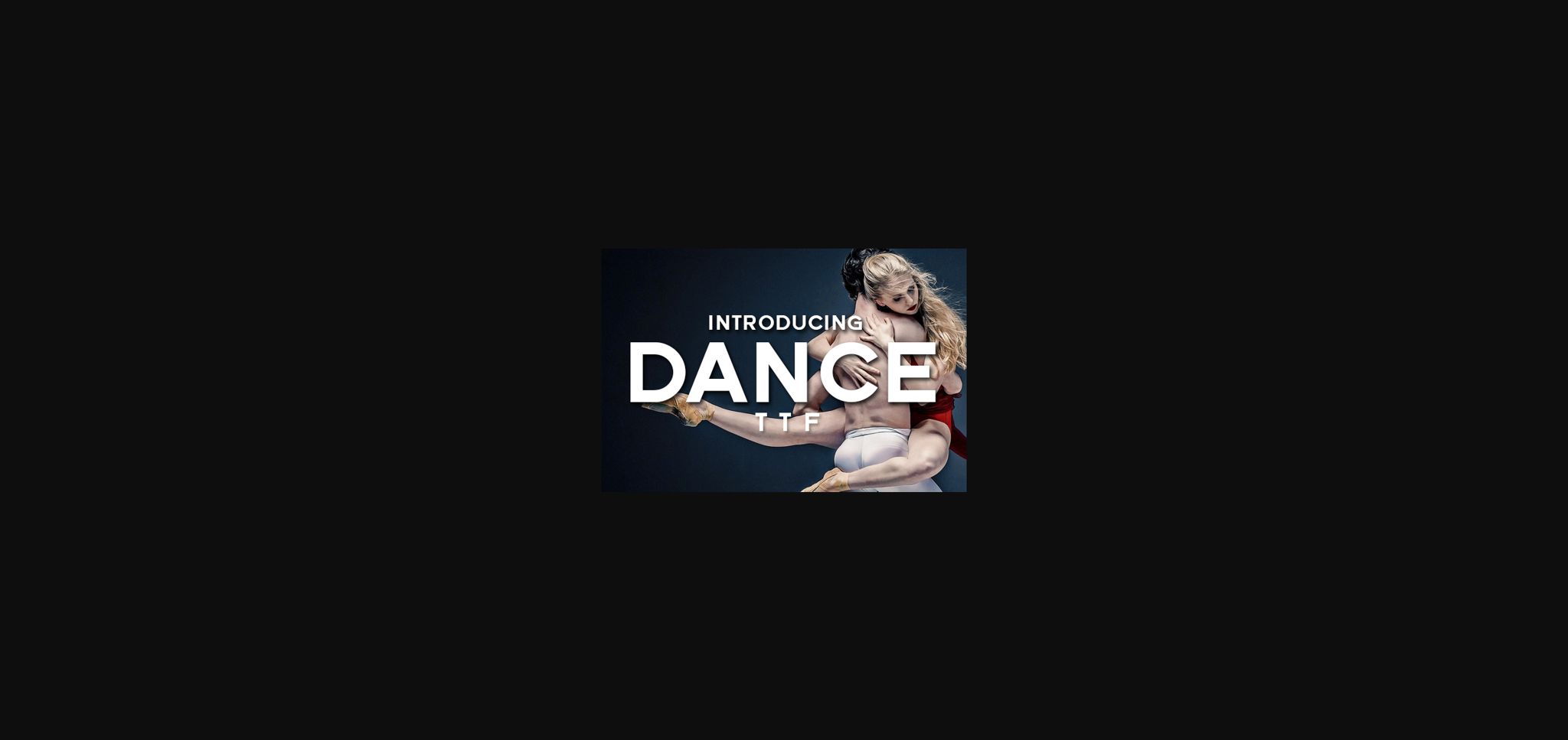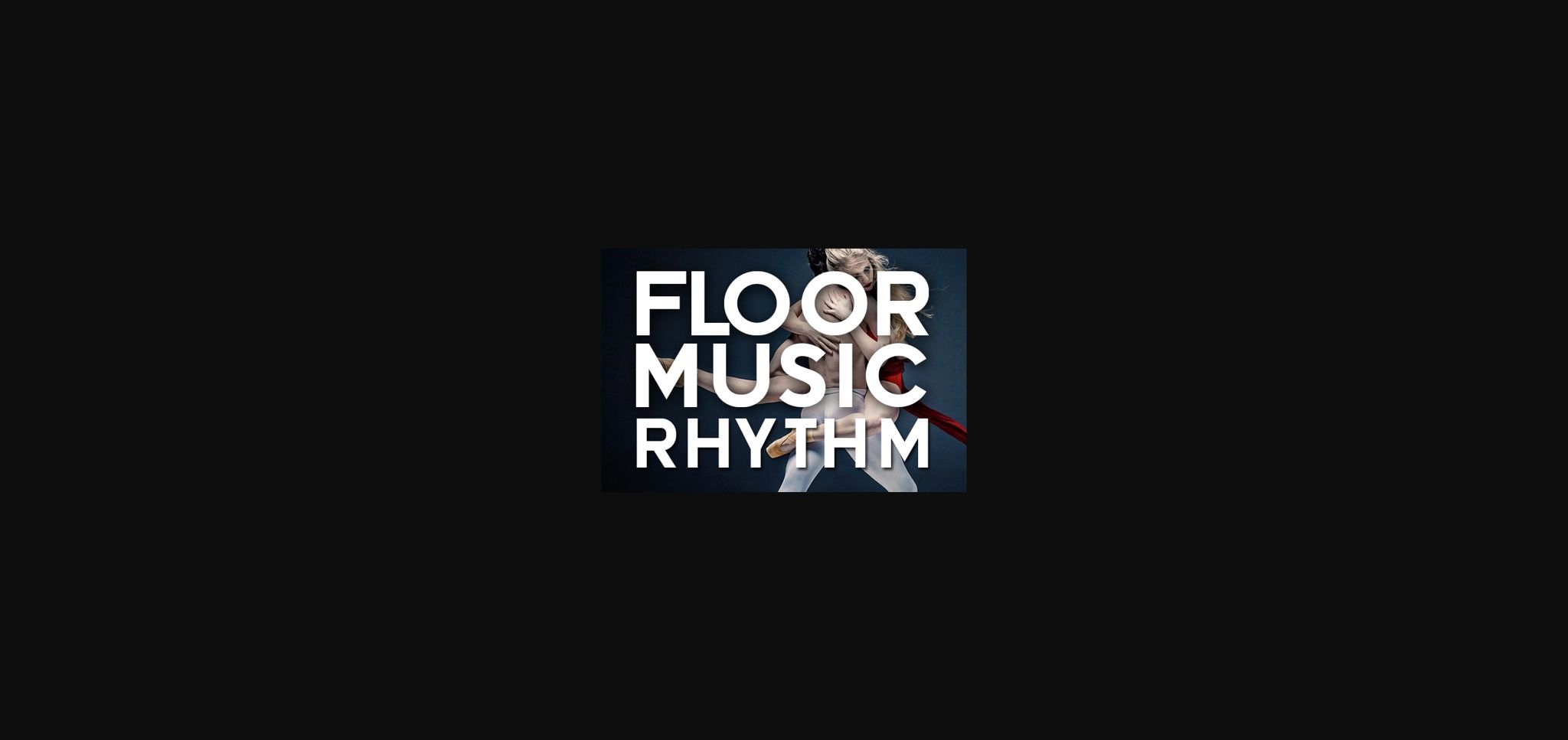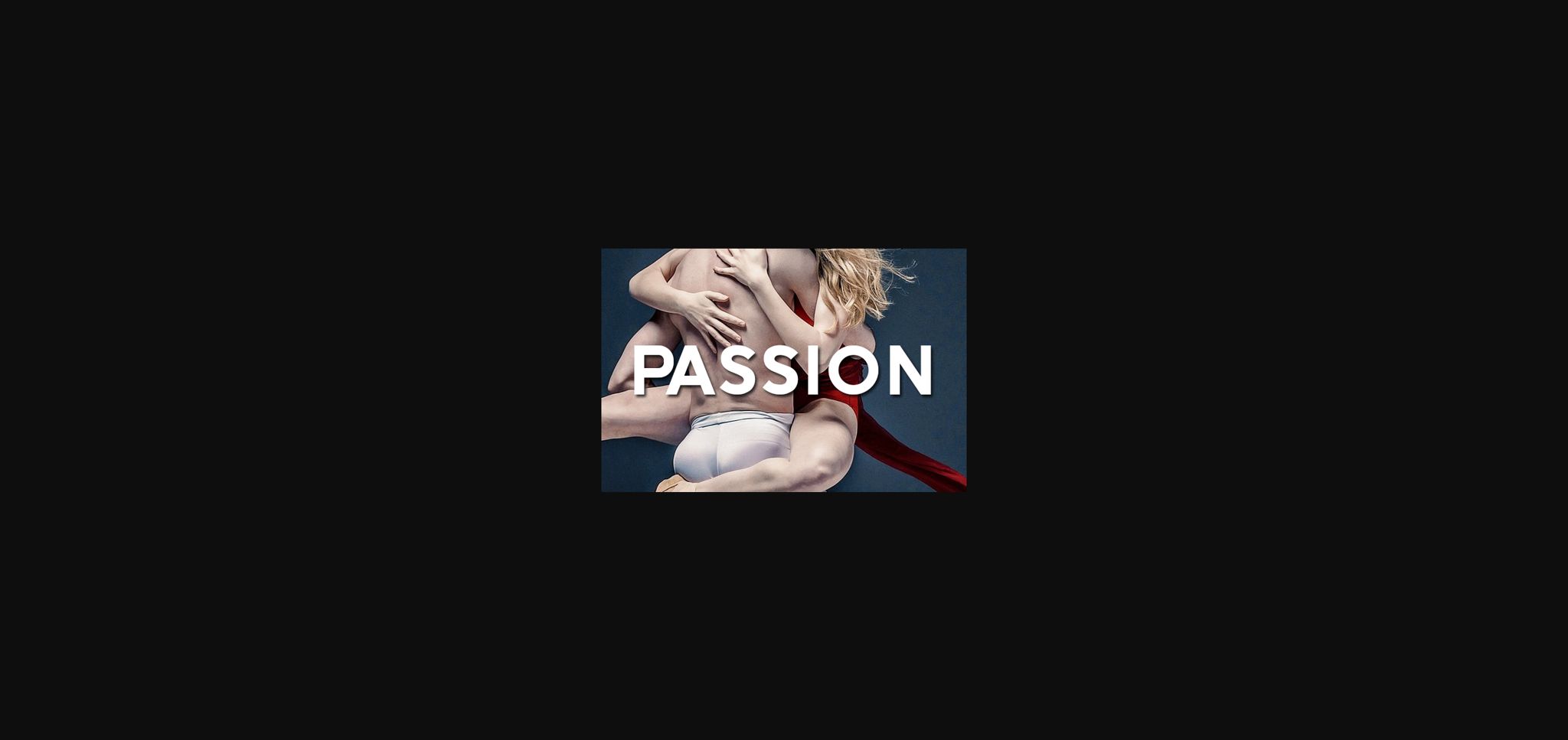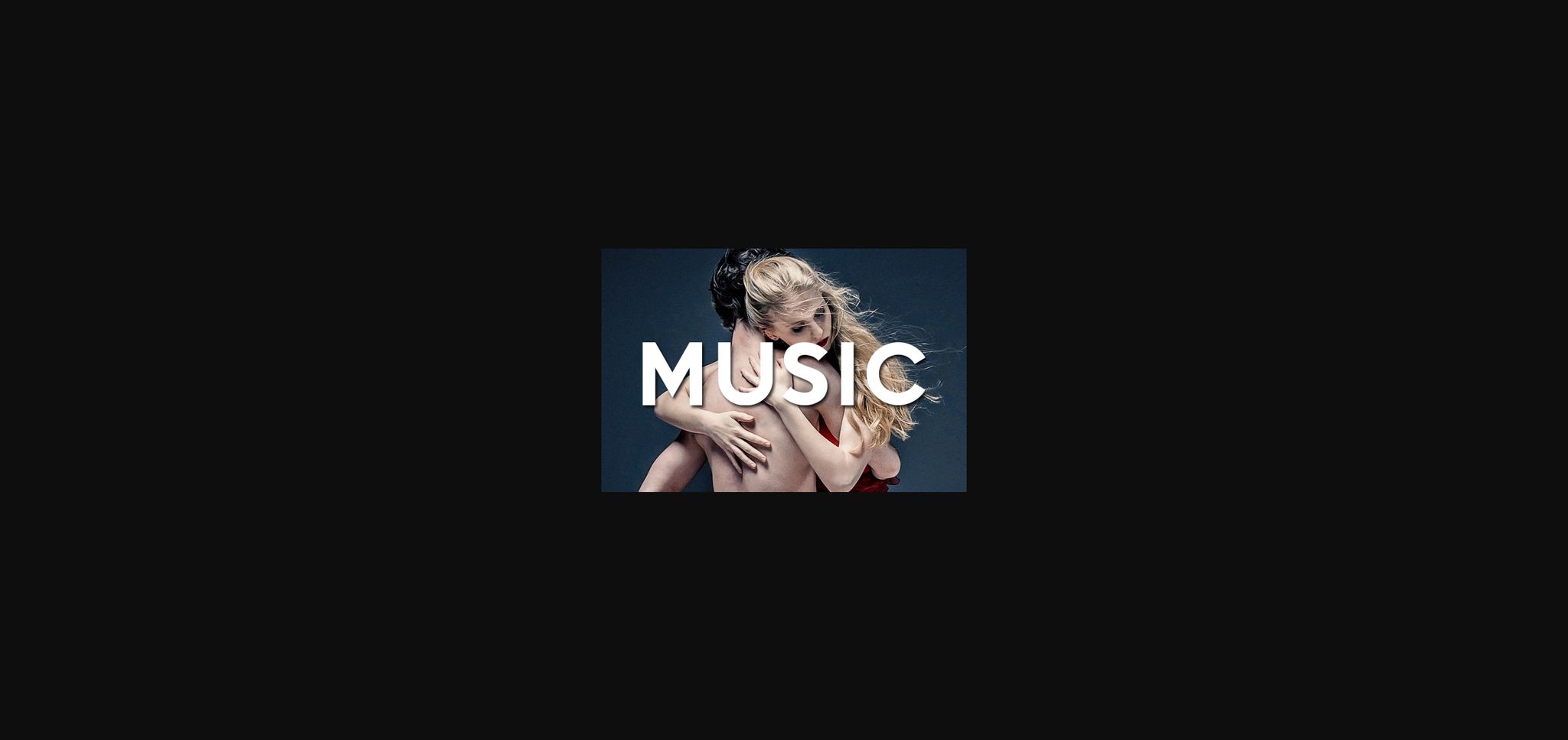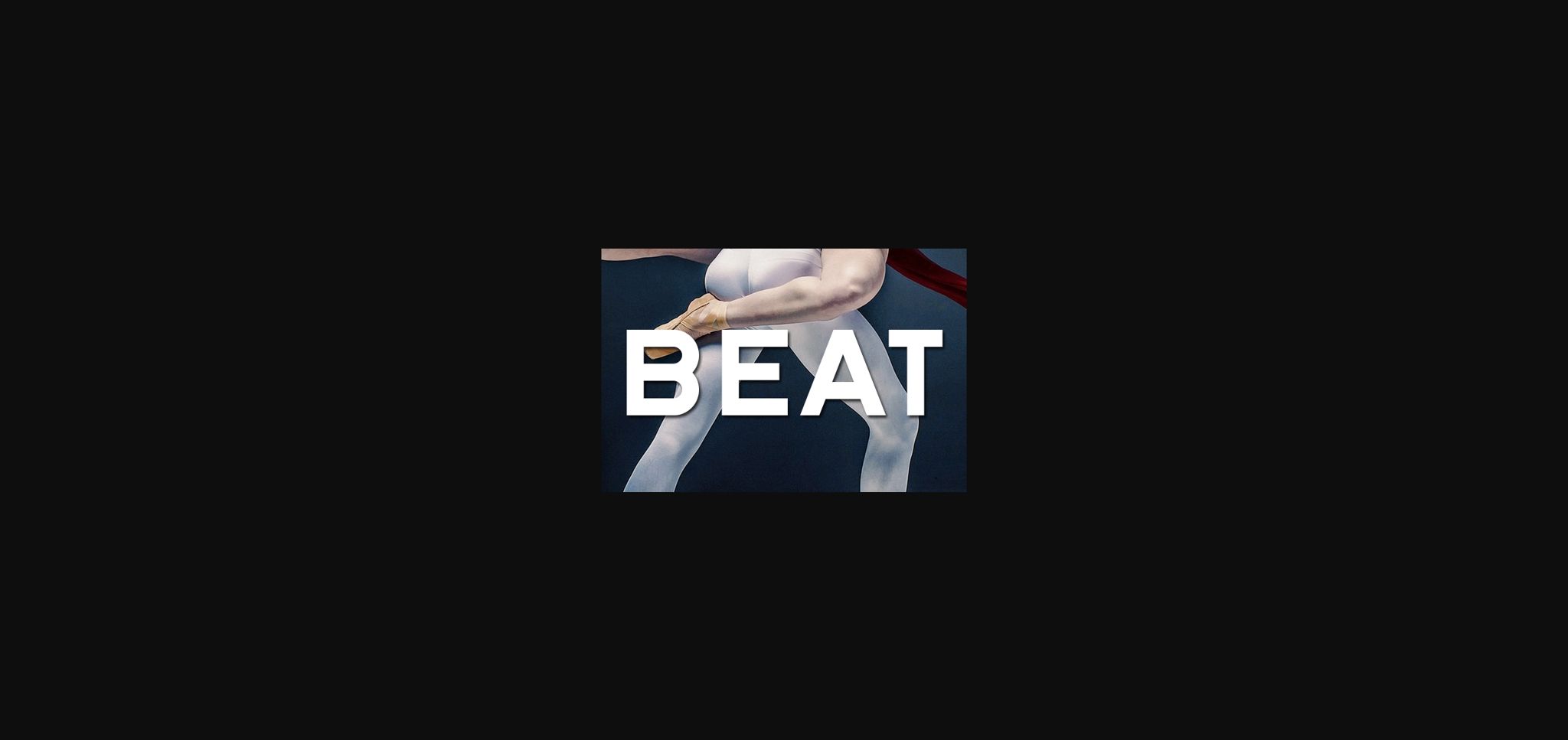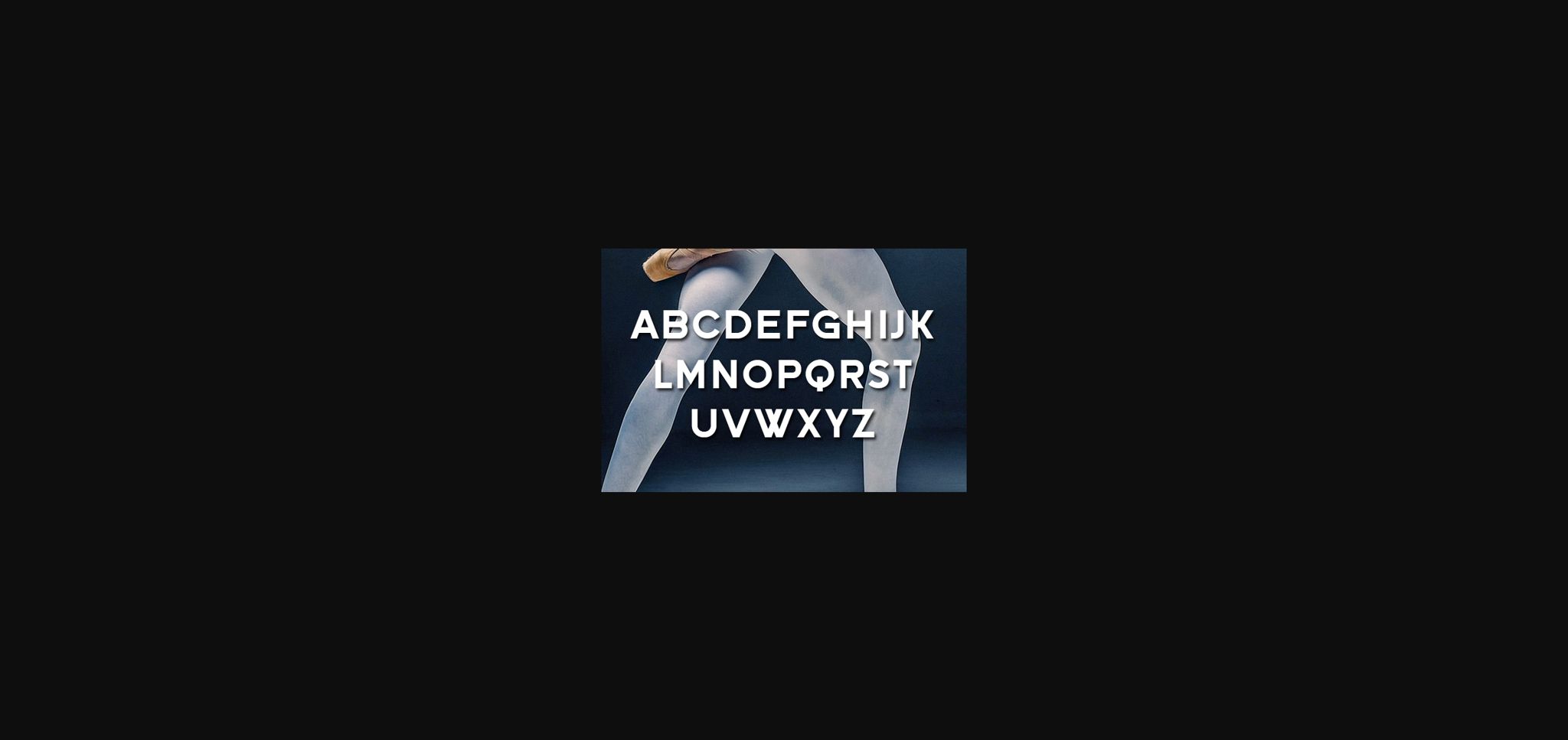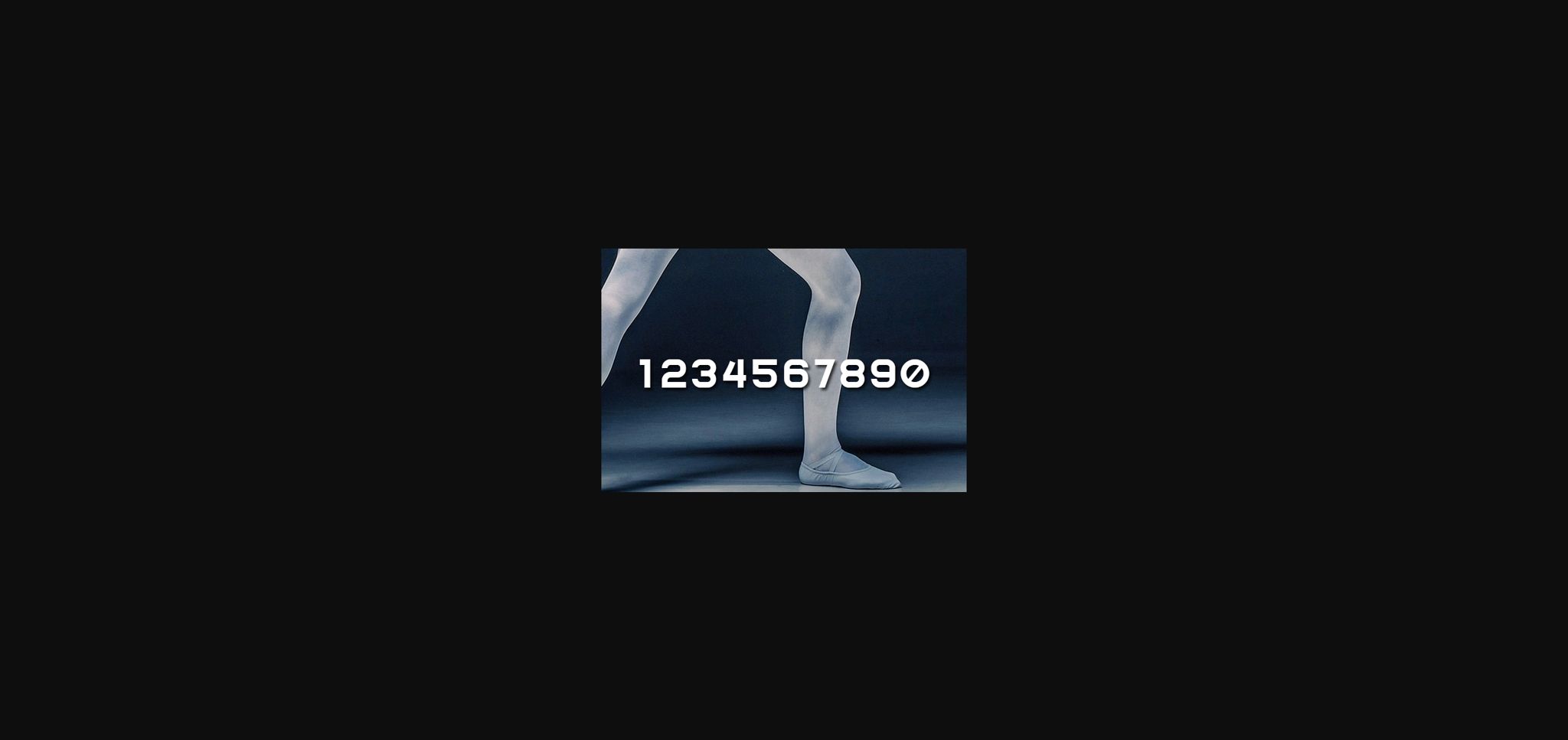
HomeSans Serif FontsDance Font Sans Serif Fonts Dance Font FacebookXPinterestWhatsApp 1 of 9 ... Dance Font Poster 2... Dance Font Poster 3... Dance Font Poster 4... Dance Font Poster 5... Dance Font Poster 6... Dance Font Poster 7... Dance Font Poster 8... Dance Font Poster 9... About Dance Font Dance is a simple yet powerful sans serif font that will look amazing on every t-shirt, poster, or flyer. Add it to your most creative ideas and notice how it makes them come alive! DOWNLOAD NOW People also explored Mens Asphalt Bella Canvas 3001 Mockup Hey Marlisa Font Sunday Font Concurso Moderne BTN WideDisplay Heavy&Shadow Font Heliolla Font Letter Clips Font Estelia Font Bulmarie Font 316 0 TagsDanceDance Font Previous articleQuade FontNext articleFour Play Font LEAVE A REPLY Cancel reply Comment: Please enter your comment! Name:* Please enter your name here Email:* You have entered an incorrect email address! Please enter your email address here Website: Save my name, email, and website in this browser for the next time I comment. Personal Use Free Scoothlane Personal Use Free Read more about this font Built Tilting Personal Use Free Read more about this font Forturn Personal Use Free Read more about this font Mini Story Personal Use Free Read more about this font BLOG Free Fonts Risk: Why Free Fonts Can Be Dangerous for Designers Free Fonts Risk: Why Free Fonts Can Be Dangerous for Designers Using free fonts is a common practice in web and graphic design. However, the... 5 Fonts That Will Dominate Design Trends in 2026 Modern Sans-Serif Fonts That Brands Love in 2025 Exploring Font Trends